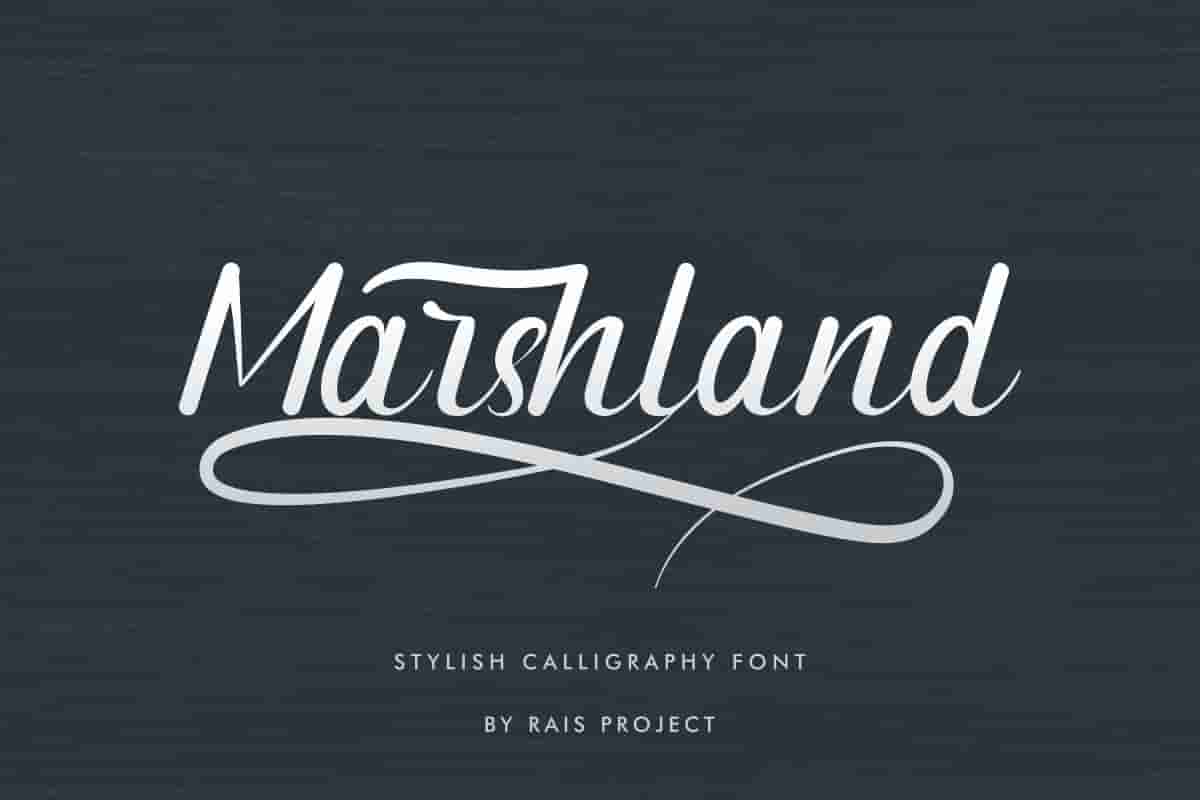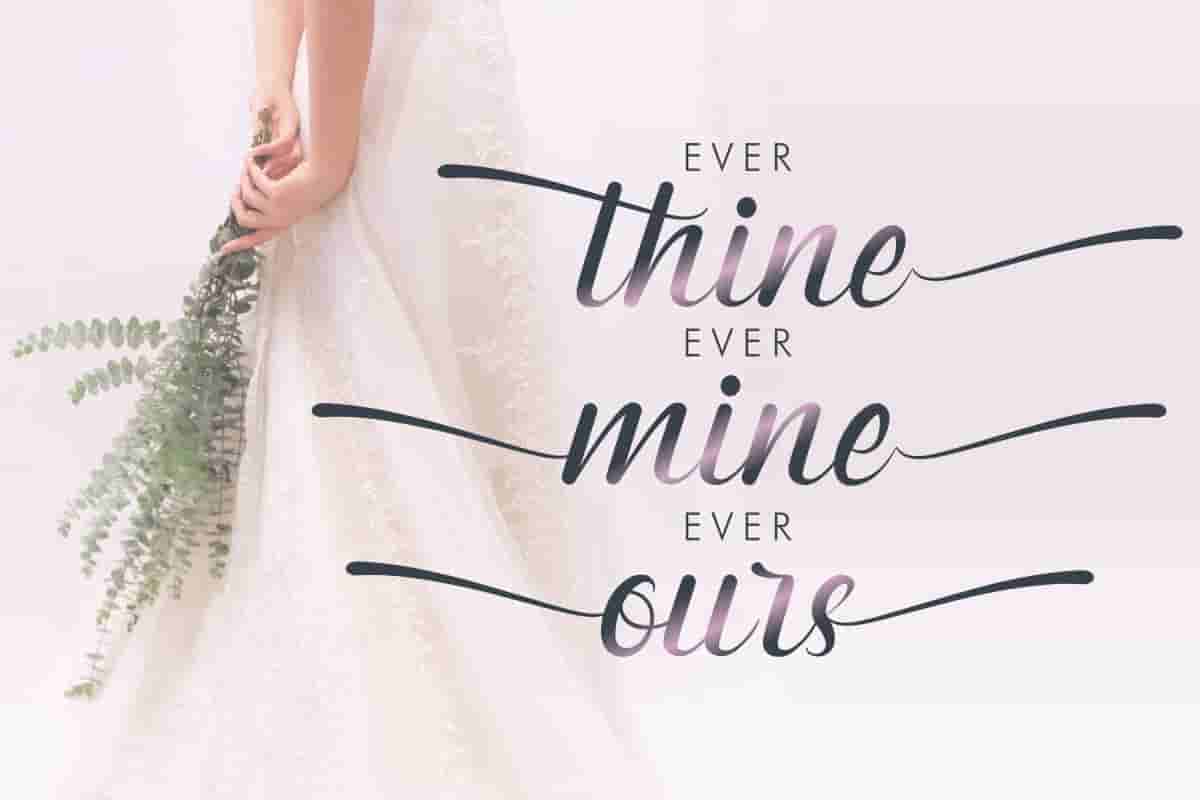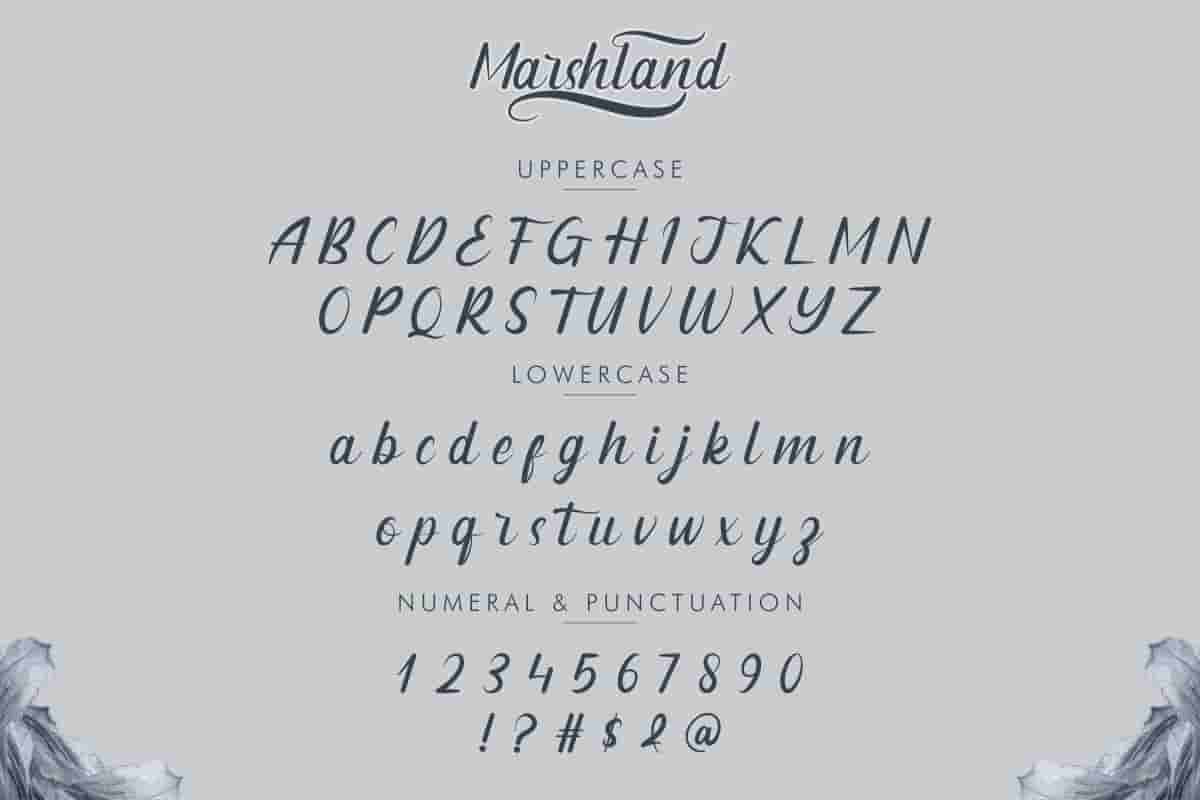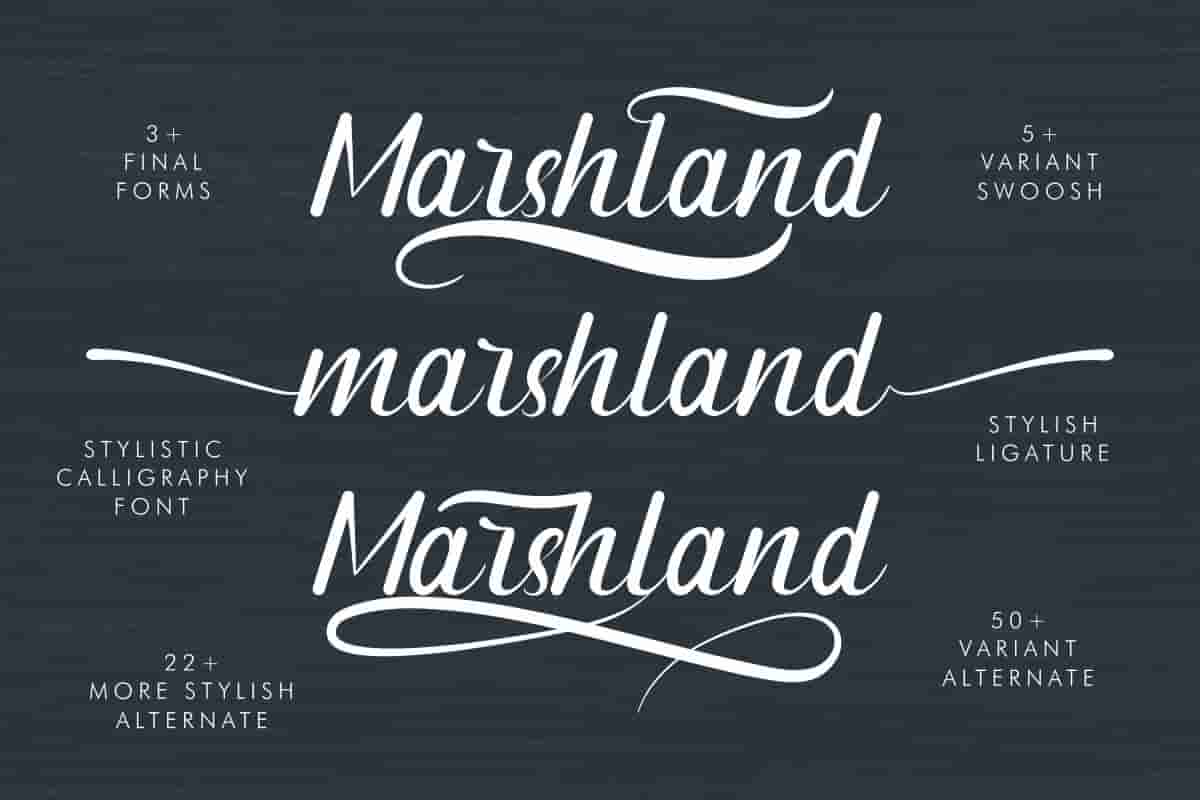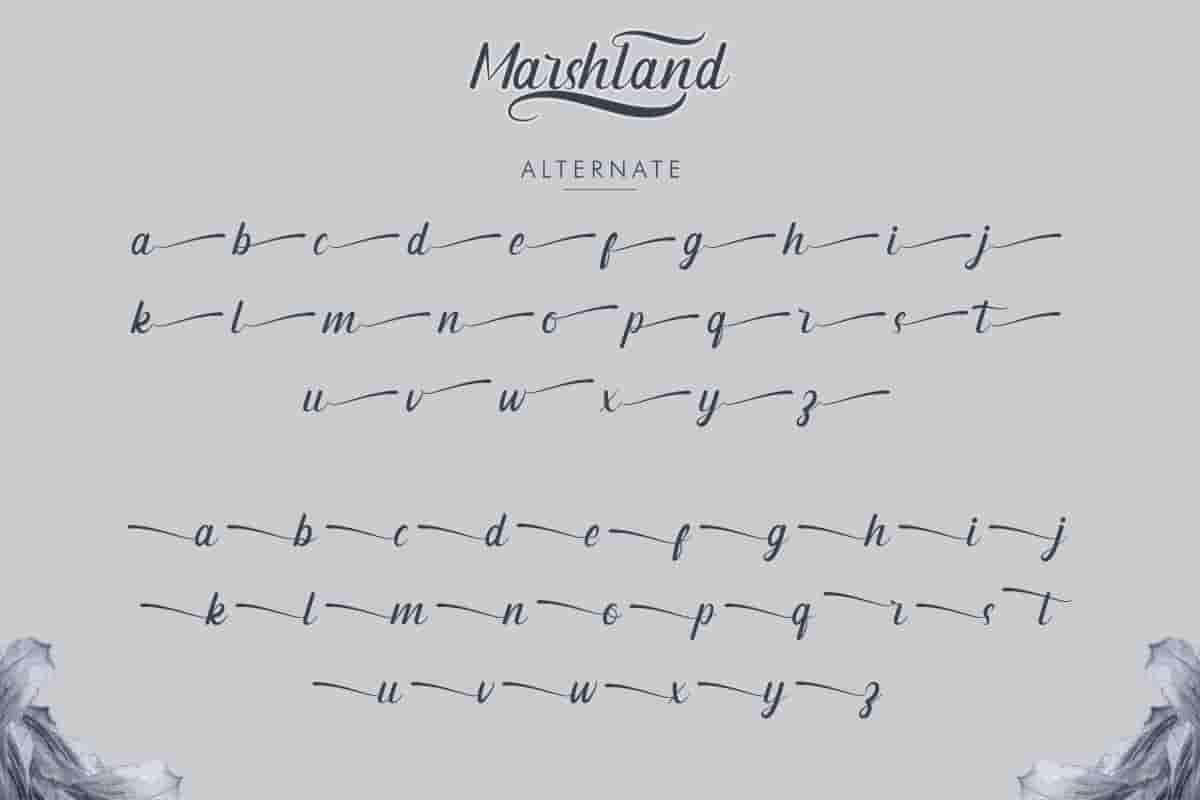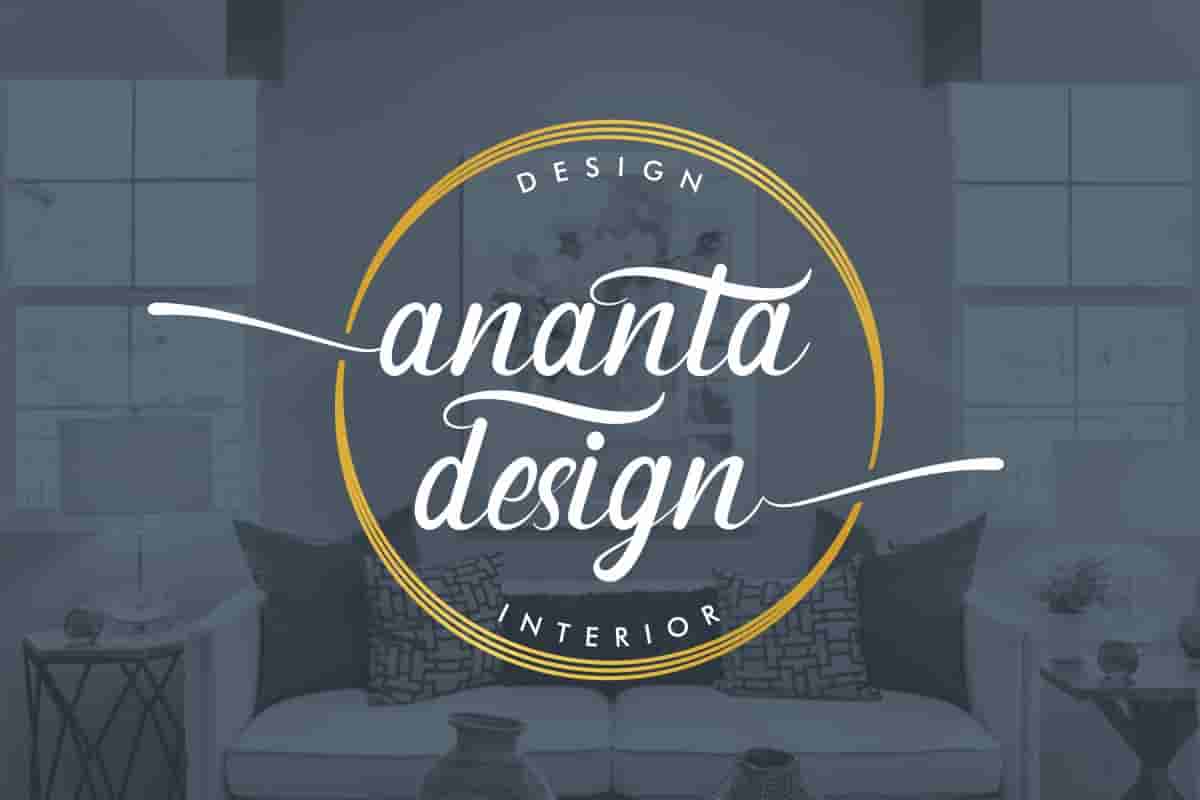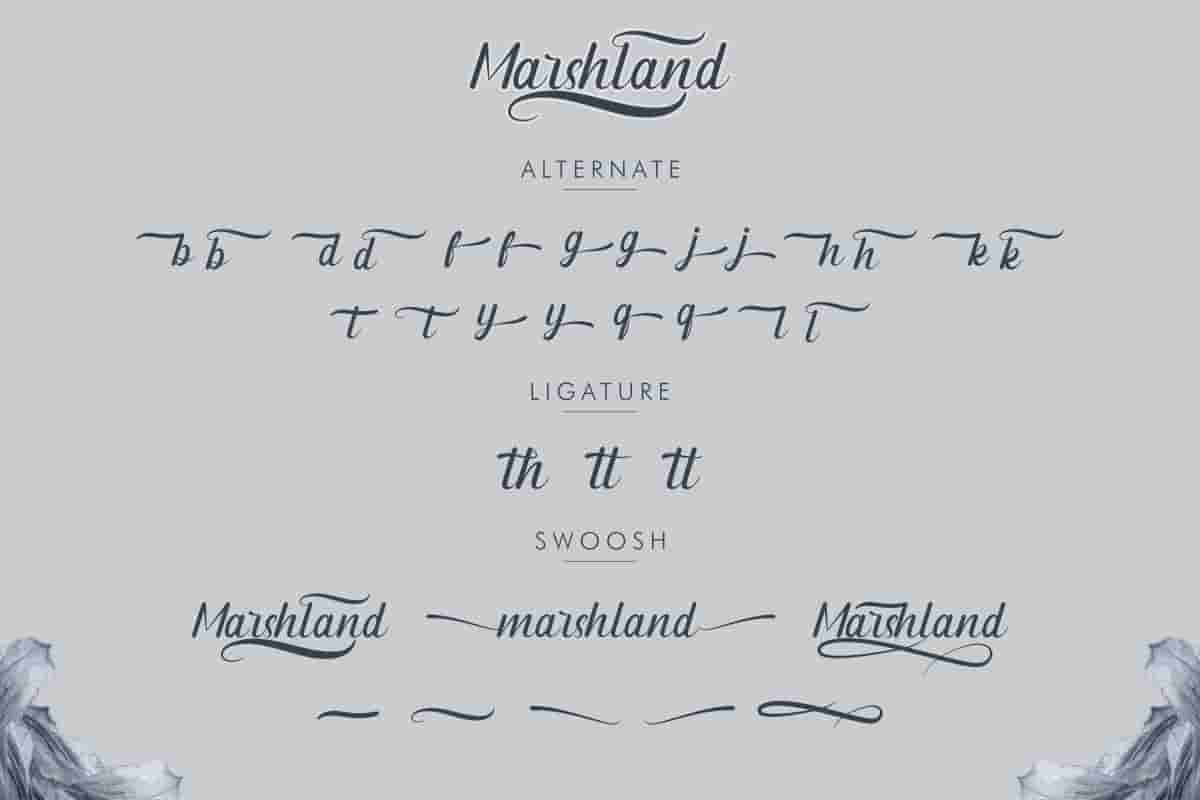
Marshland calligraphy Font
Marshland Font is a Calligraphy script font by RaisProject. With beautiful characters, it will be stunning for any your special projects including : weddings, promotion, events, branding, advertising etc
Marshland Font is our new font on the market. It is a script font with calligraphic handwriting style. You can see the demo font below. You can also input any word you want so you can see what it will look like:
Marshland Font made in Indonesia. The font handcrafted With beautiful characters, it will be stunning for any your special projects including : weddings, promotion, events, branding, advertising, magazine, shopping, signage, invitation, stationery, social media posts, product packaging, product designs, label, photography, watermark or and any projects that need calligraphy handwriting style.